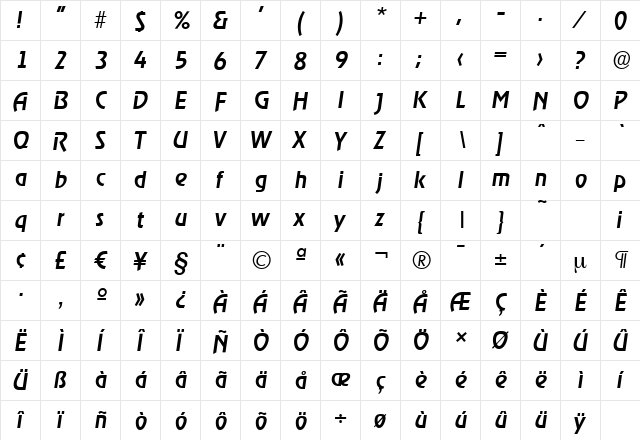
OnStageSerial-Medium Italic
OnStageSerial-Medium takes a measured approach to typography — its balanced proportions and neutral character make it a reliable workhorse for both digital and print work. The dynamic lean of this cut emphasises speed and emphasis in any layout.